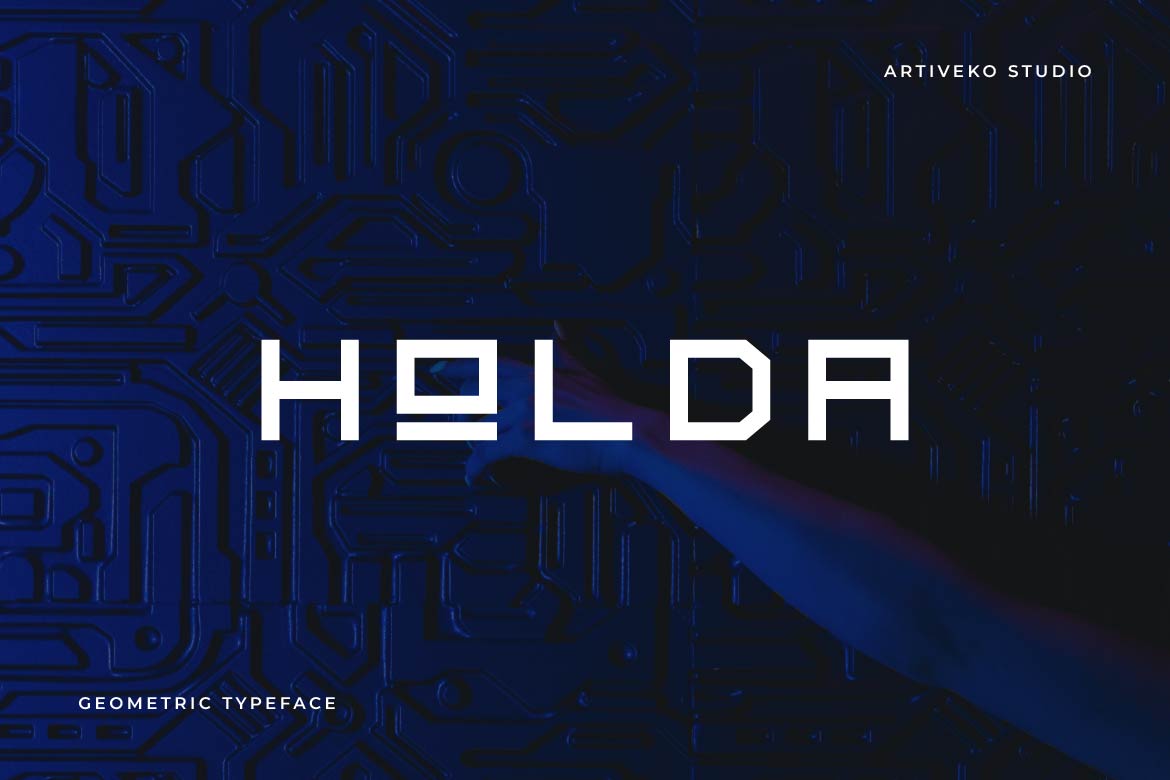
Holda – Geometric Technology Typeface
Holda is a geometric technology typeface designed for the next generation of digital innovation. Built with precise geometric construction, clean lines, and contemporary proportions, Holda delivers a modern aesthetic that reflects intelligence, performance, and technological advancement.
Created for technology startups, AI platforms, SaaS products, fintech companies, UI/UX systems, gaming brands, and digital interfaces, Holda offers exceptional readability while maintaining a distinctive futuristic identity. Its balanced geometry makes it ideal for logos, websites, dashboards, mobile applications, presentations, and bold display headlines.
Whether you’re designing a cutting-edge brand identity or developing futuristic digital experiences, Holda provides the perfect combination of minimalism, precision, and innovation.
Holda isn’t just a typeface—it’s engineered to shape the visual identity of tomorrow’s technology.